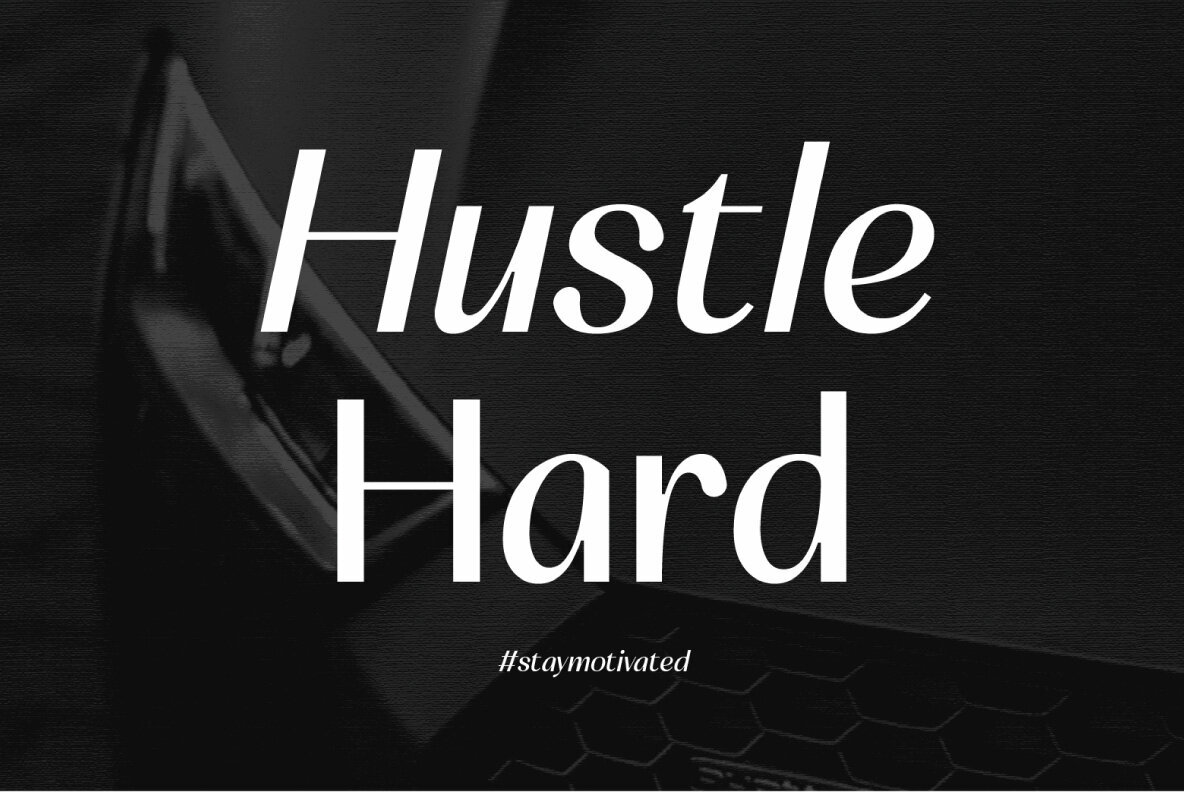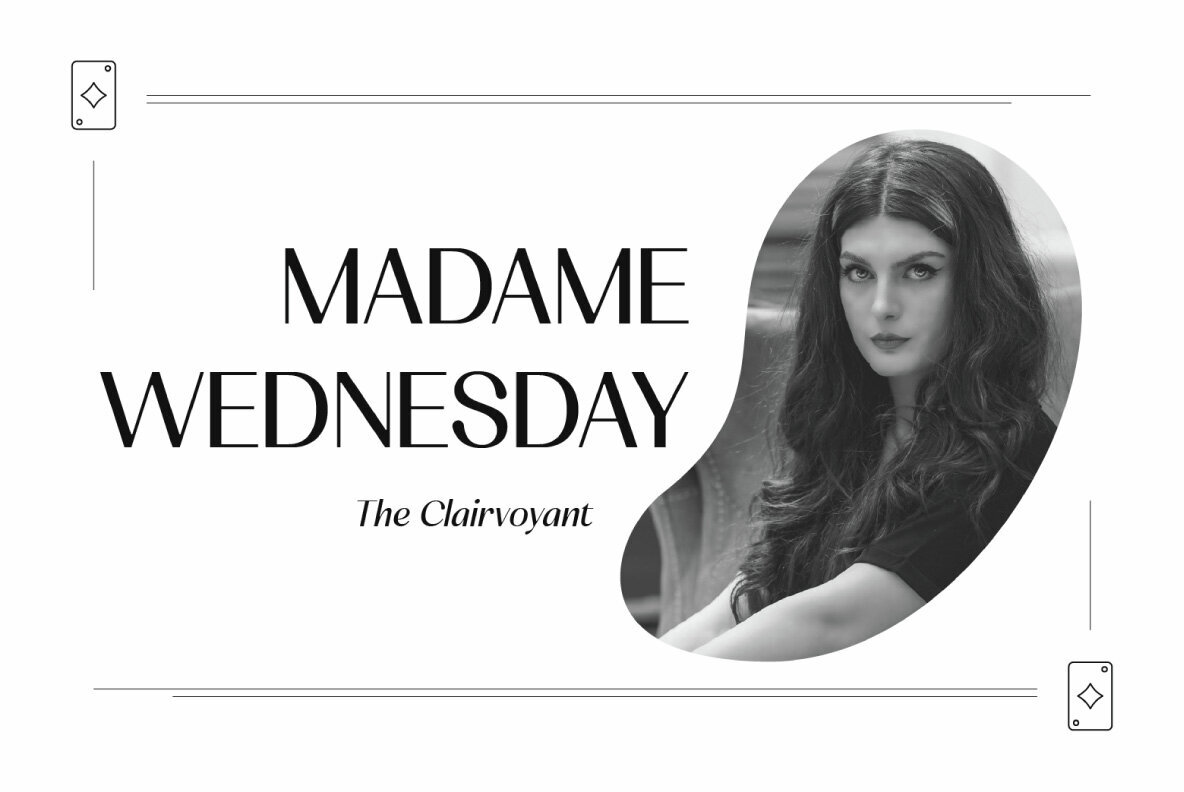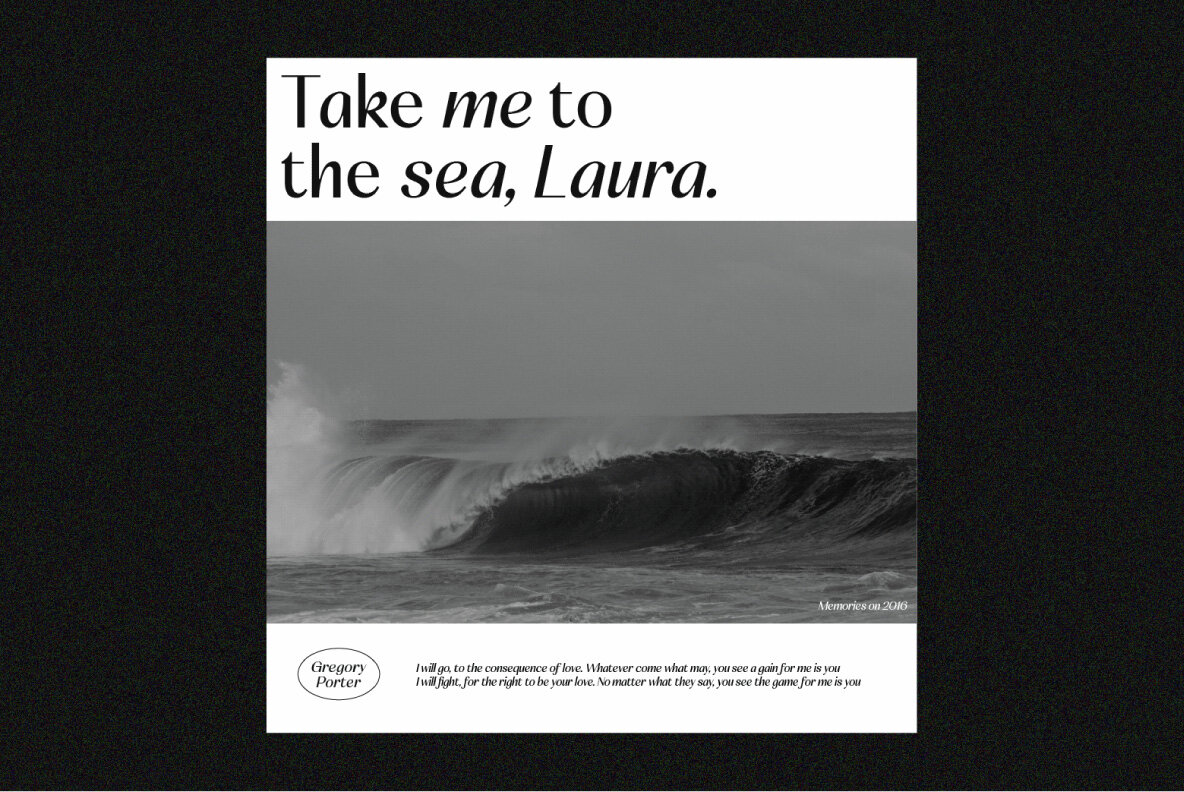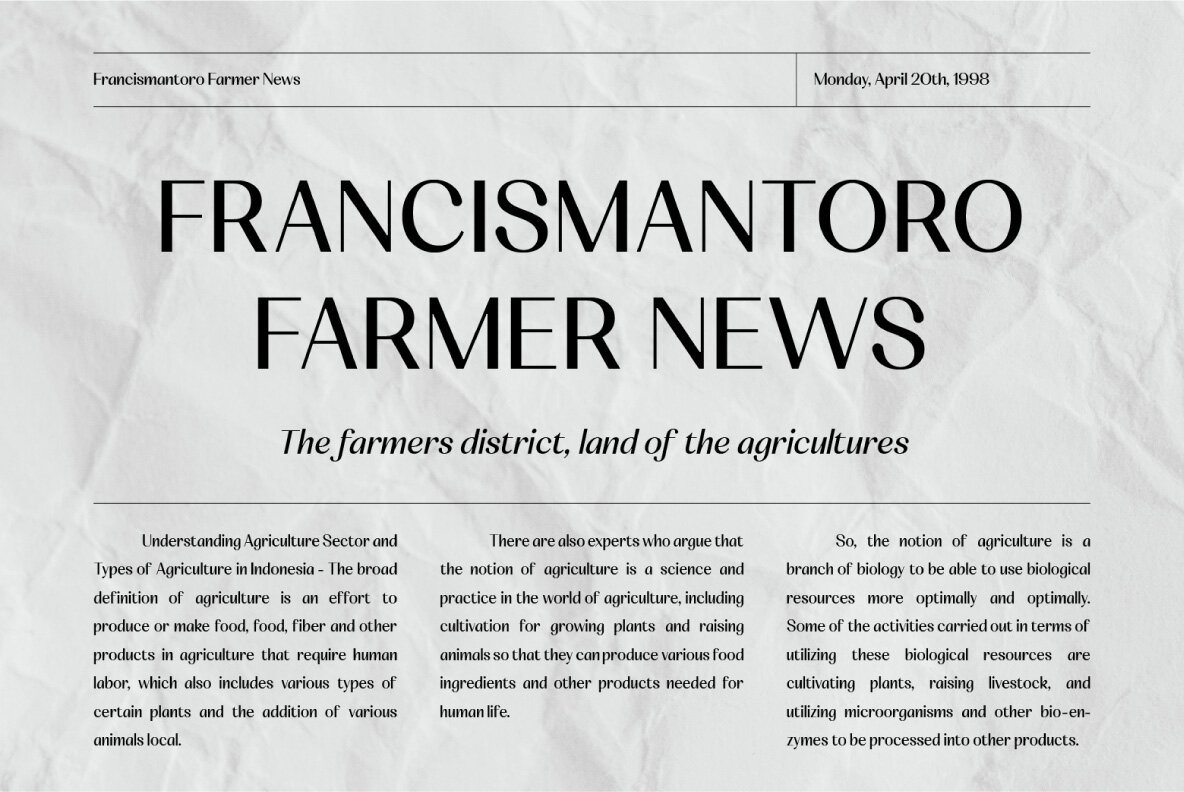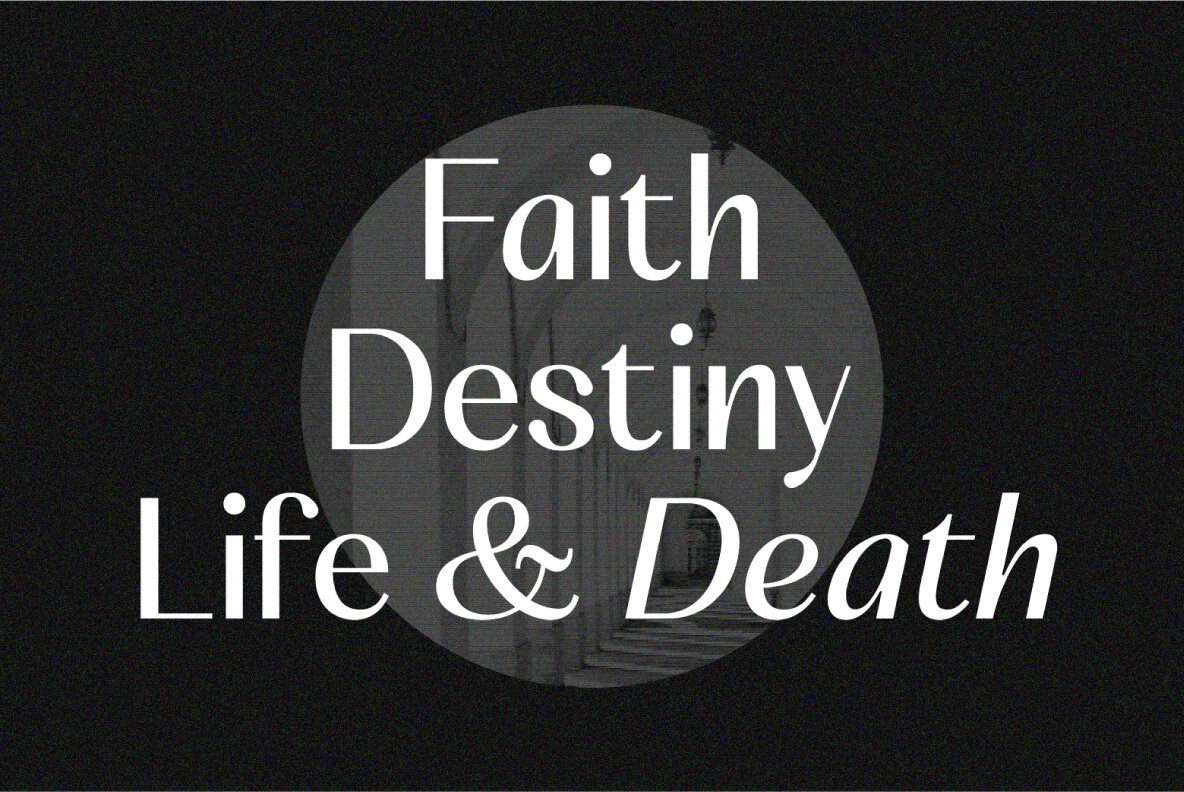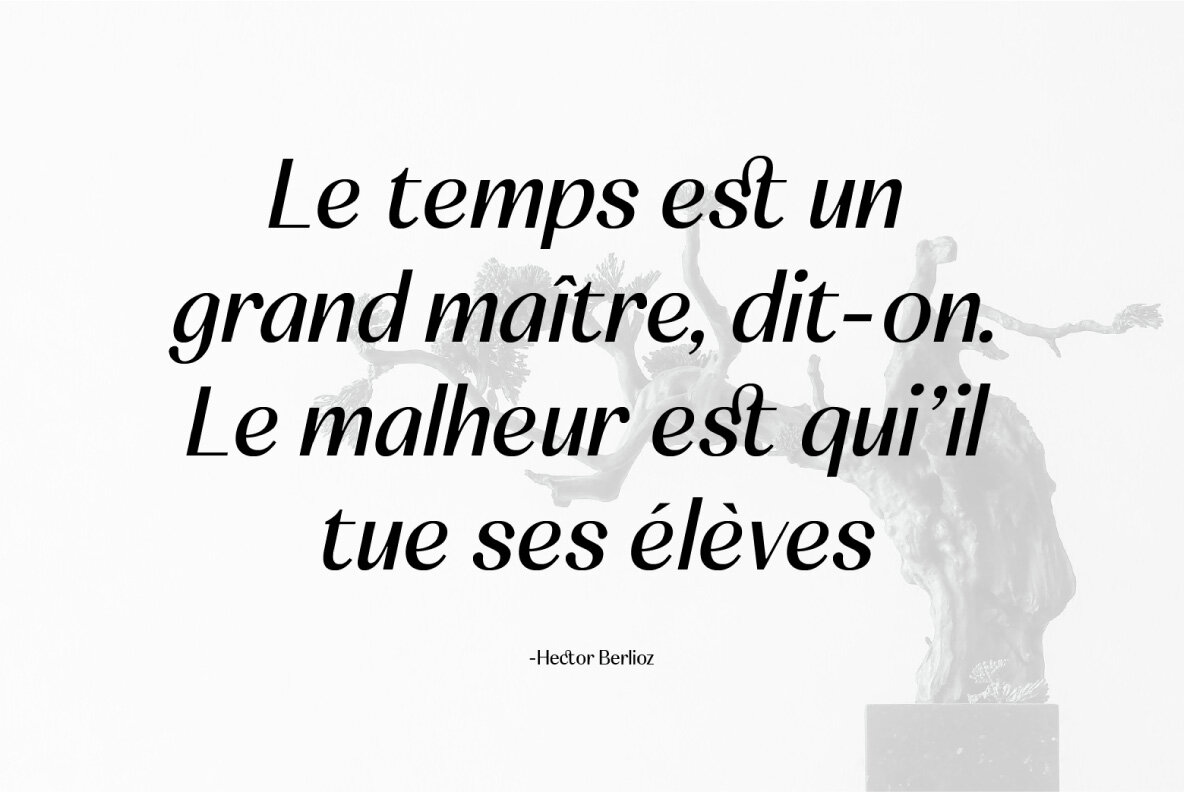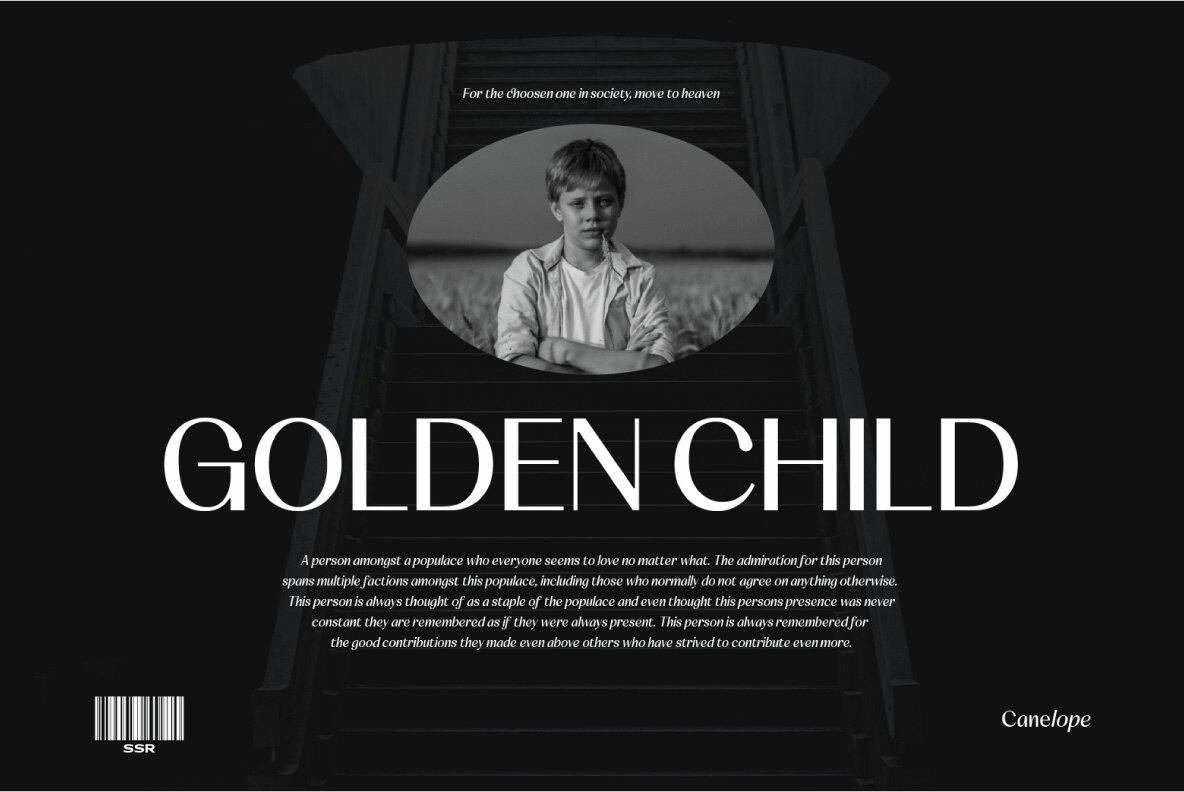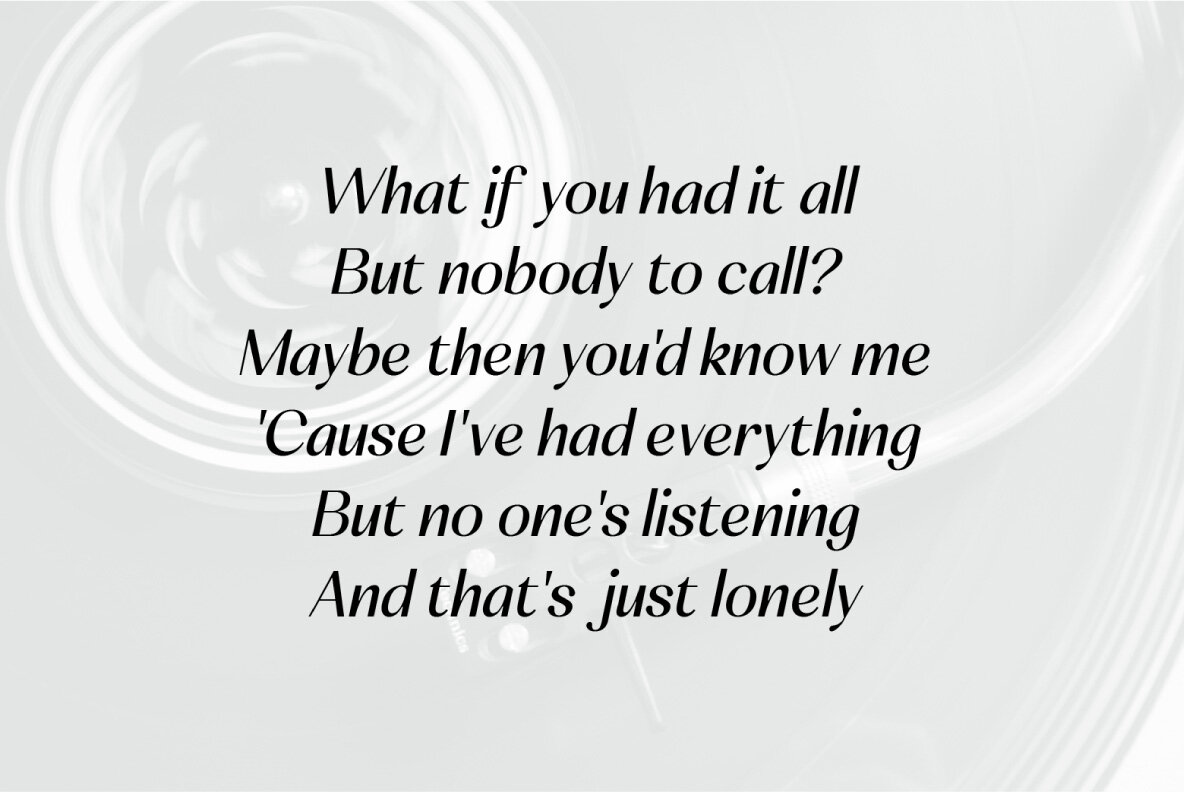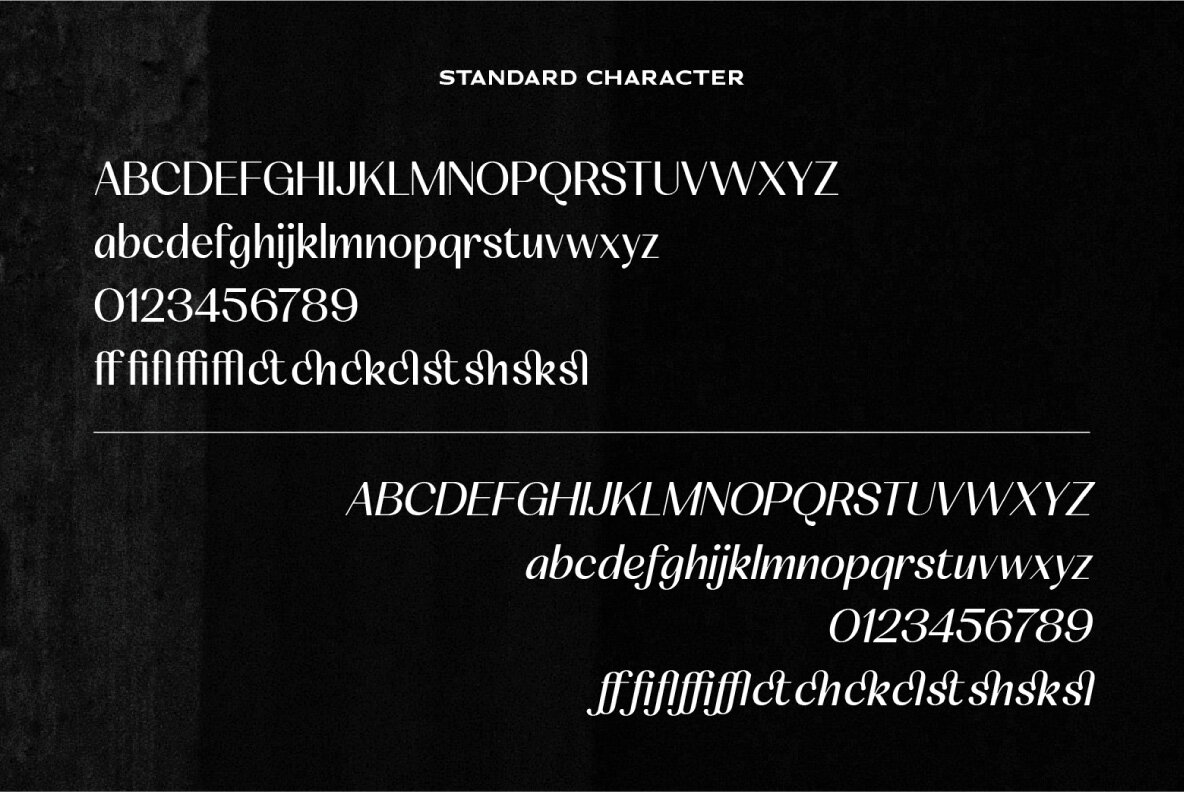
SS Canelope Font
Canelope Regular
Canelope Italic
Canelope is a timeless sans serif font, ideal for crafting modern and luxurious design projects. Its elegant appearance makes it perfect for luxury logos, branding, and sophisticated editorial layouts. Whether designing for women’s magazines, cosmetic brands, or art galleries, Canelope adds a touch of class. It's also well-suited for boutique branding, stationery, blogs, and modern advertising. Use it to create refined card invitations, artful quotes, decorative home elements, or compelling book covers and titles.
This versatile font features a comprehensive character set, including basic Latin uppercase and lowercase letters, numbers, punctuation, and a ligature set. With OpenType capabilities and PUA encoding, it provides seamless integration into various design software. Canelope also supports multiple languages, broadening its usability and appeal.